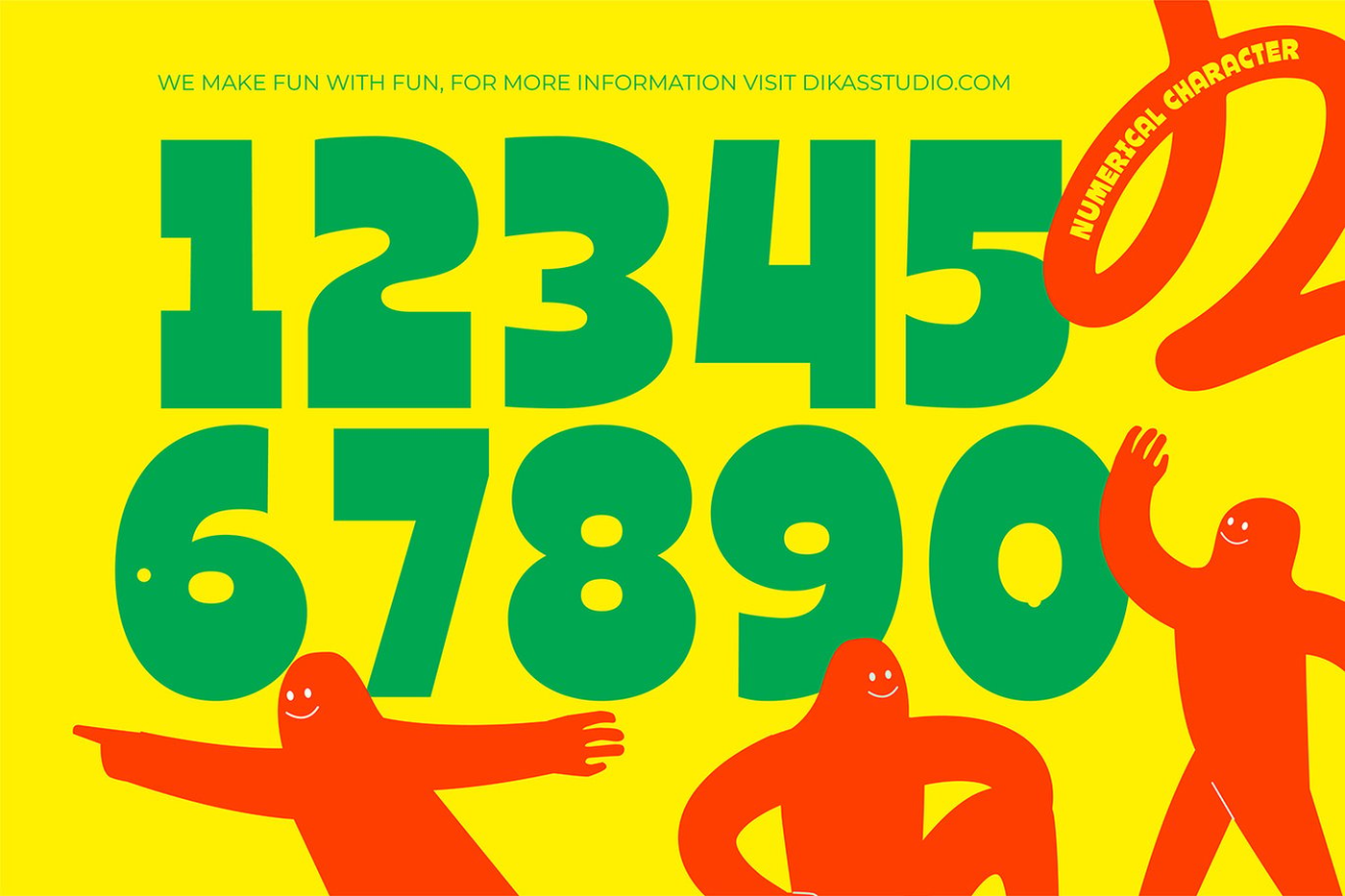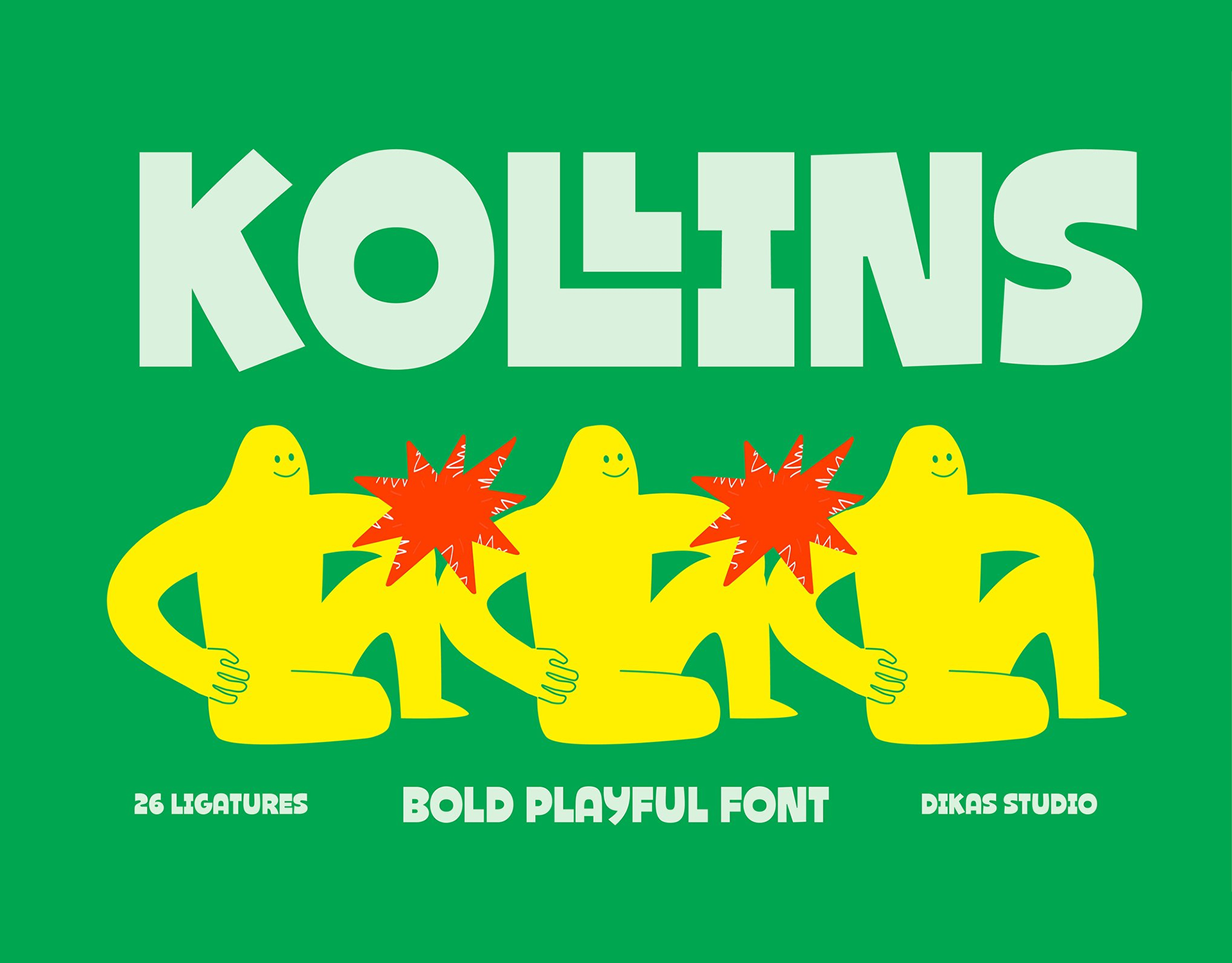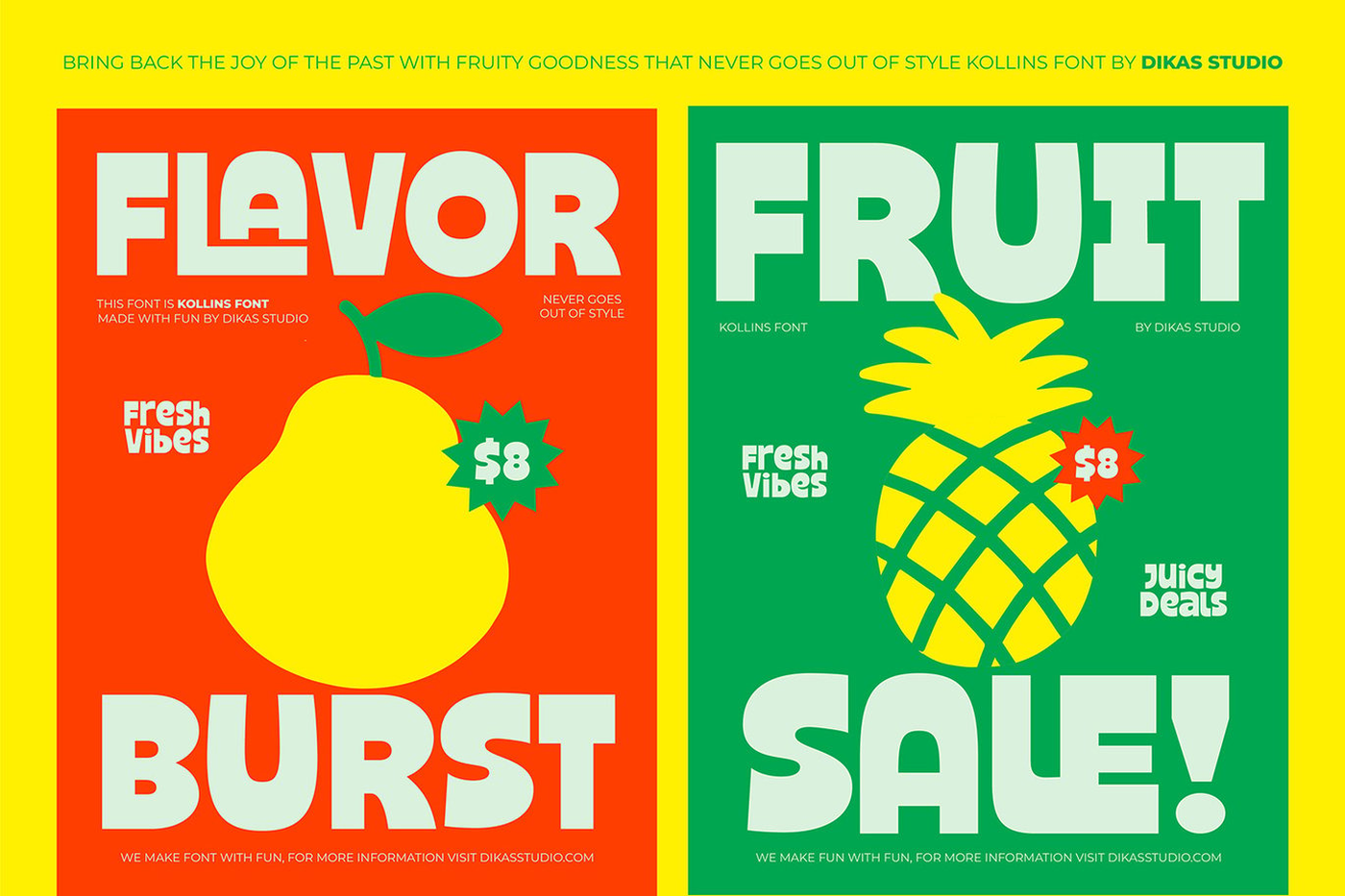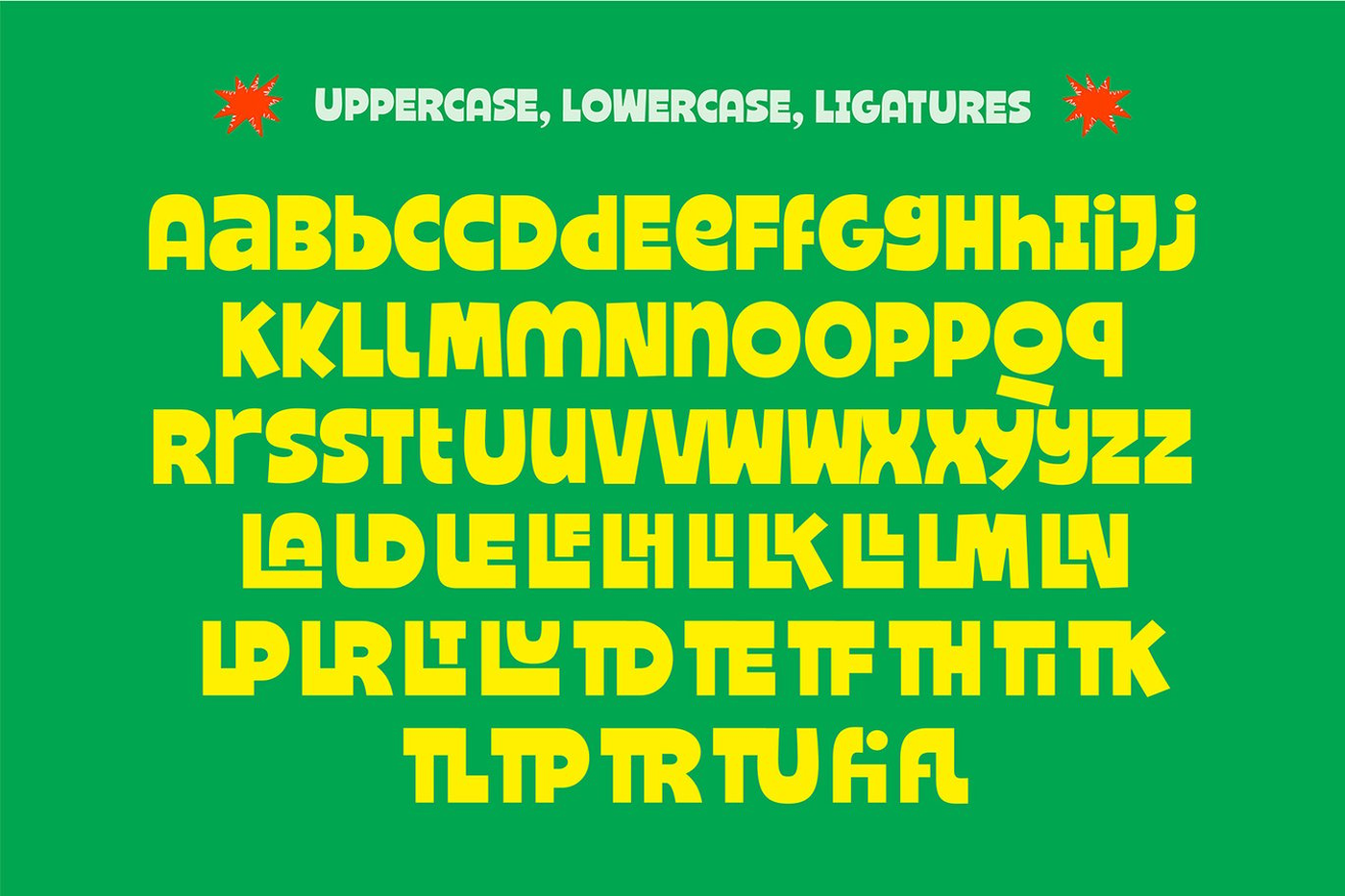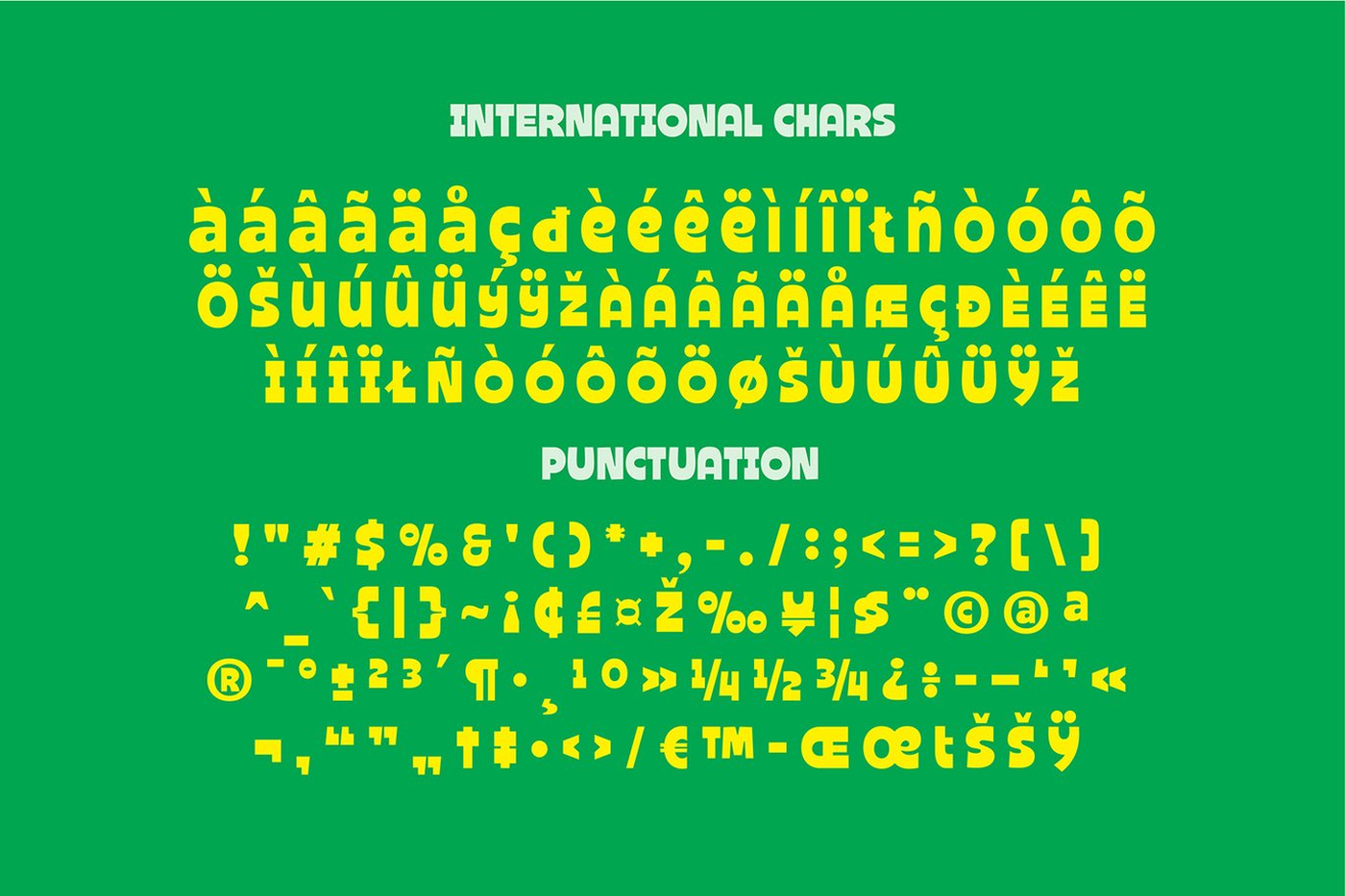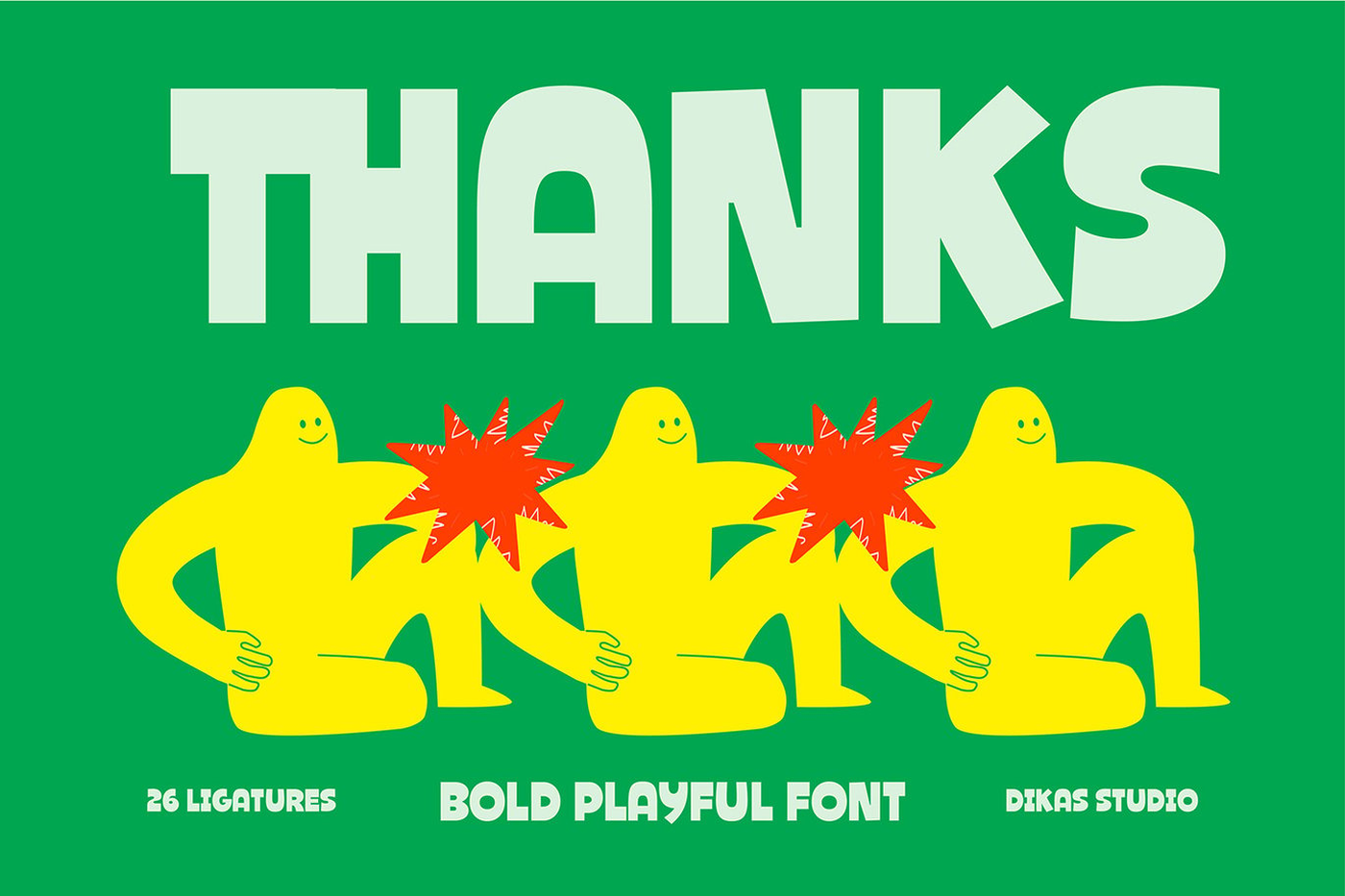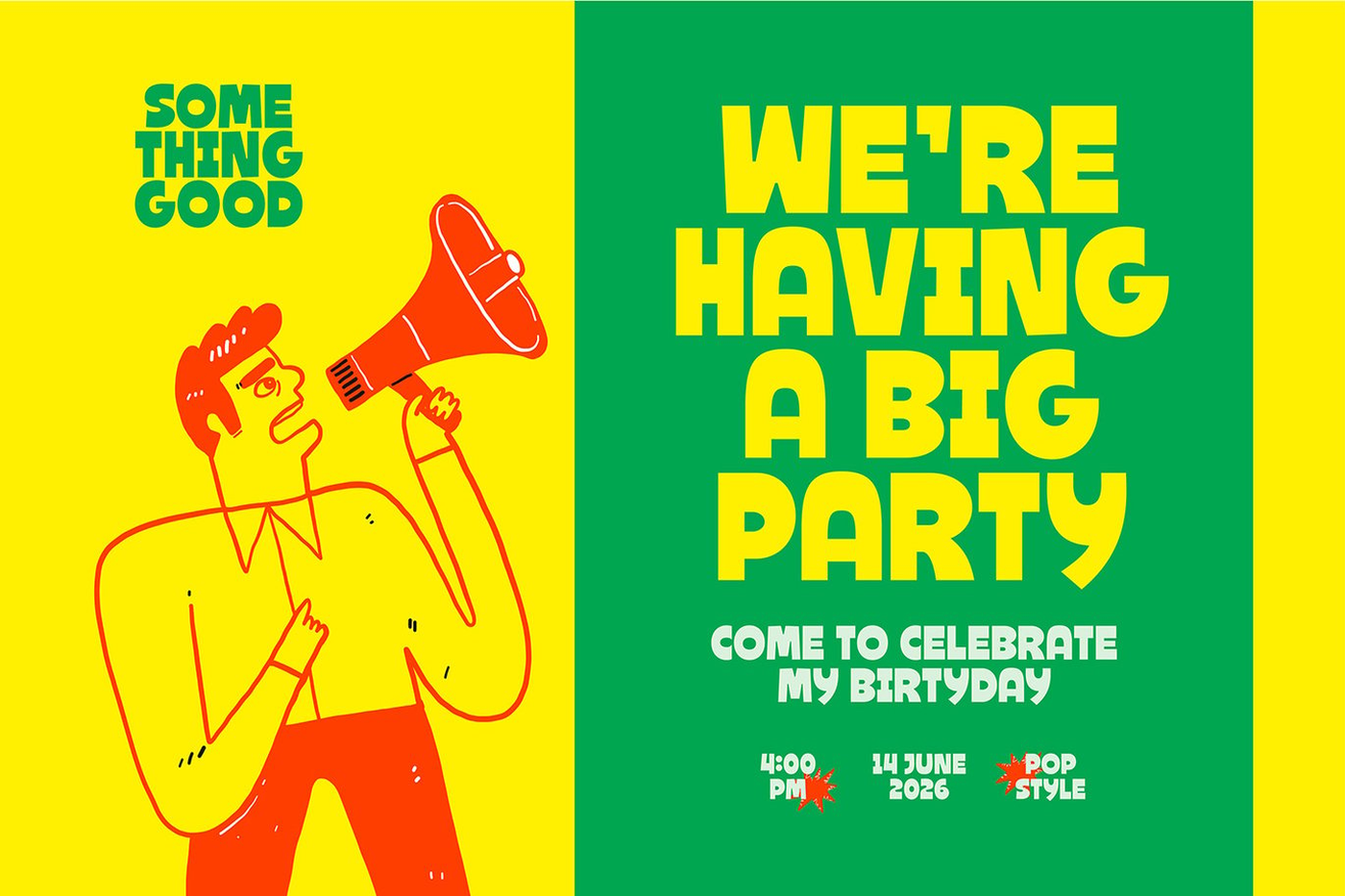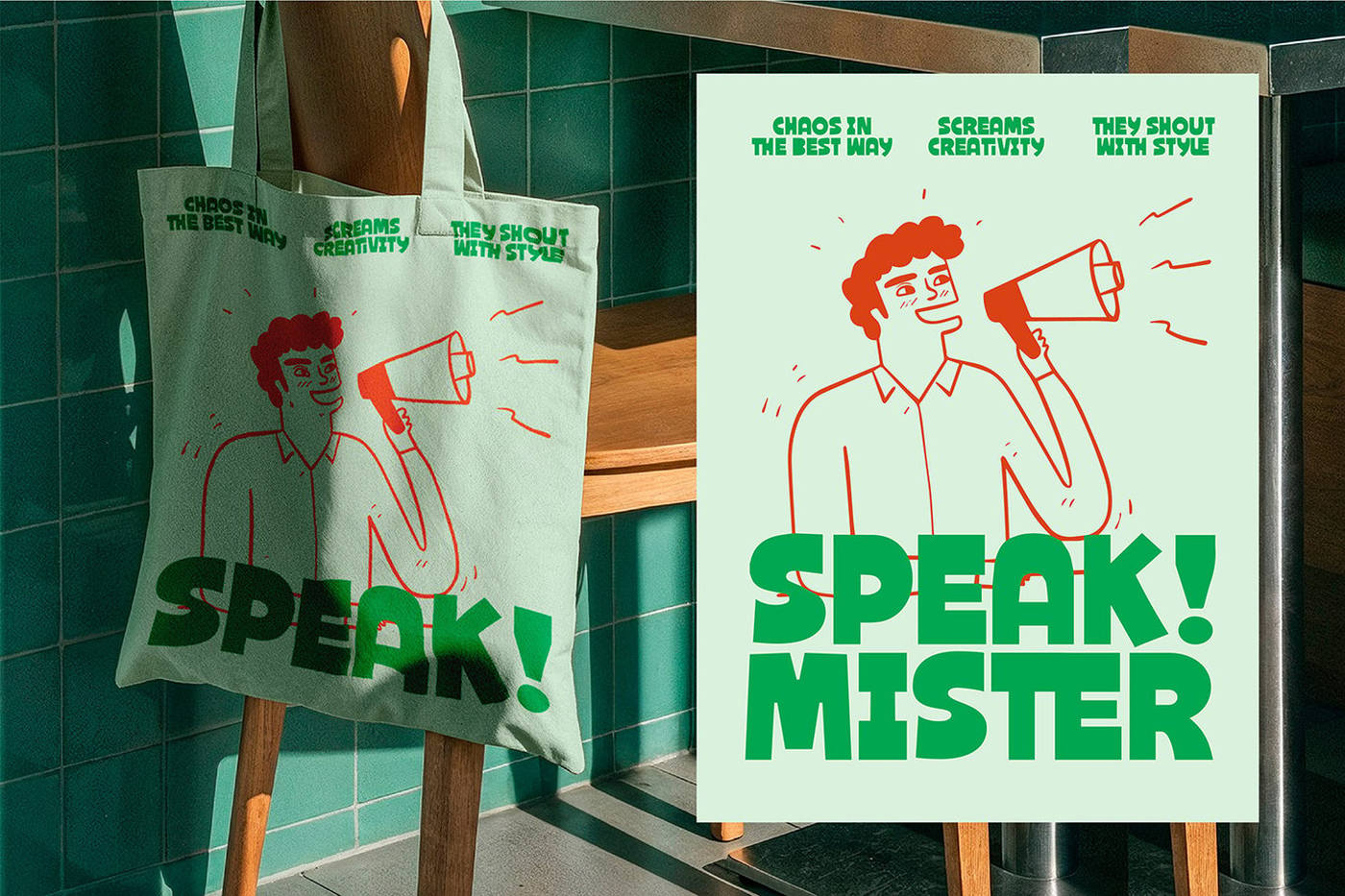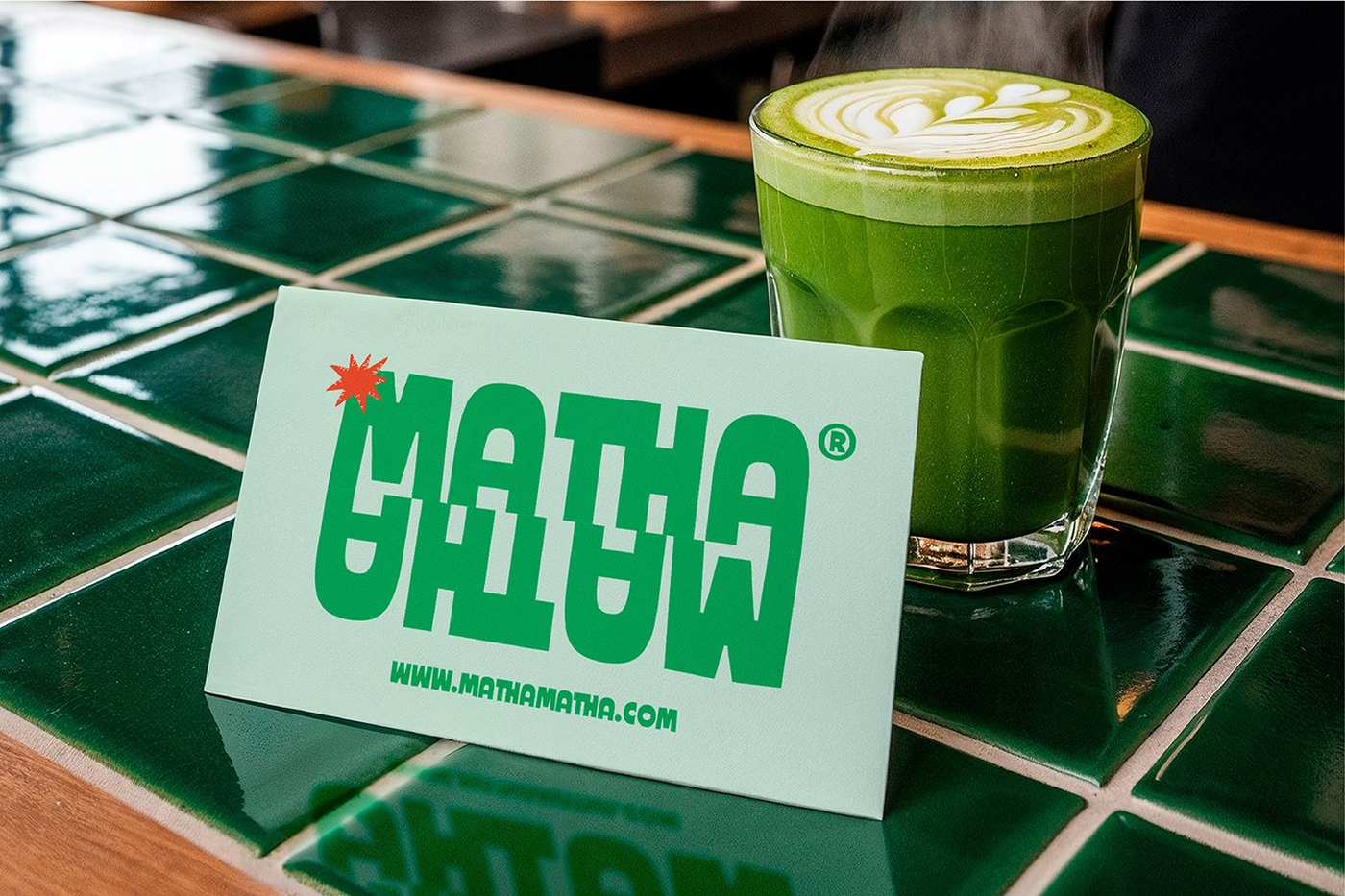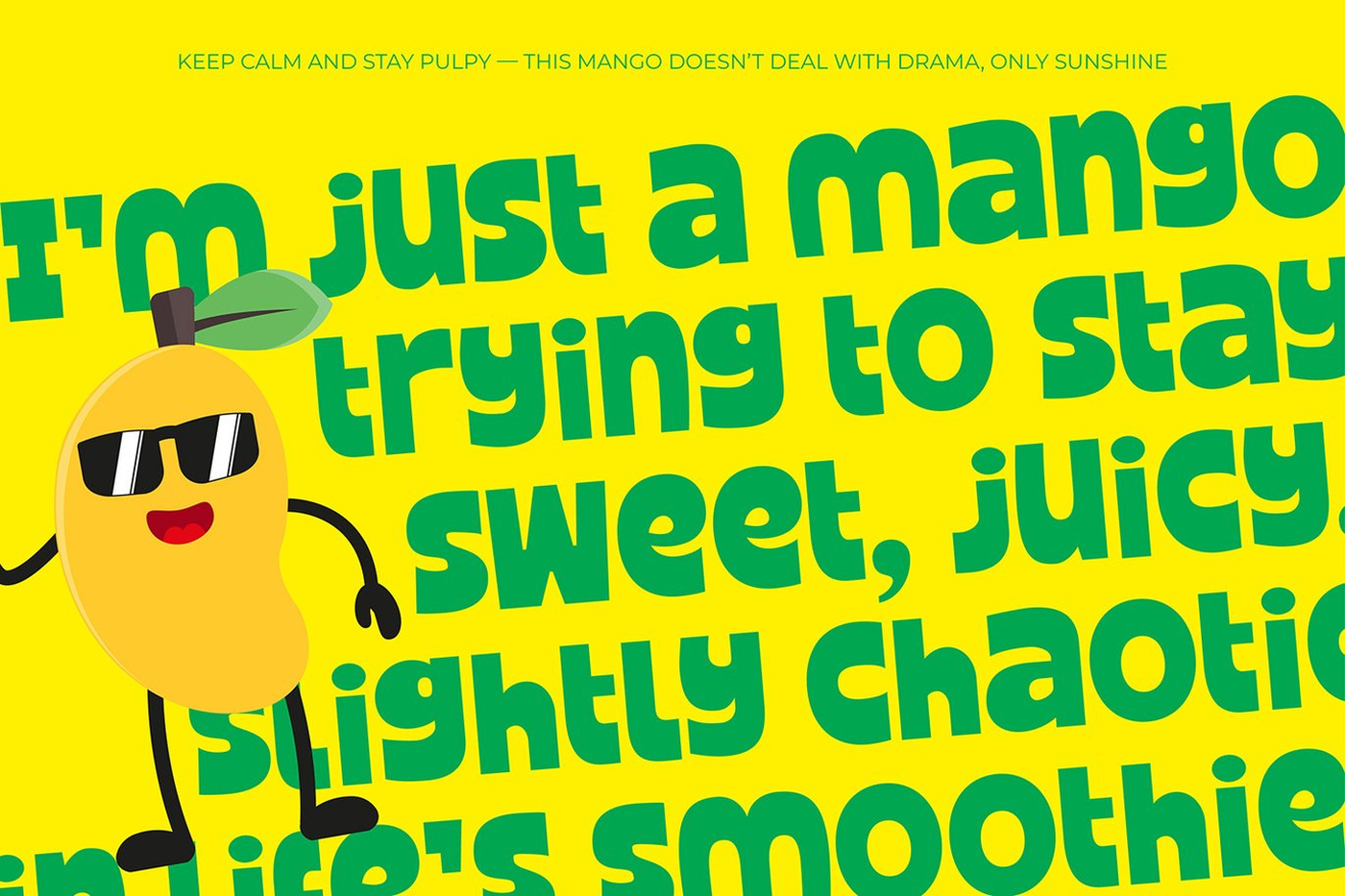
Kollins - Bold Playful Font
Kollins is a bold, hand-drawn sans serif font designed to bring energy, personality, and fun into any project. Its chunky shapes and playful rhythm make every word feel alive, while the unique alternate characters add expressive variation for eye-catching typography. Perfect for logotypes, posters, headlines, children’s designs, and any project that needs standout lettering, Kollins delivers a joyful handcrafted charm. Available in Regular and Rough styles, giving you the flexibility to choose between a clean bold look or a textured, artistic feel.